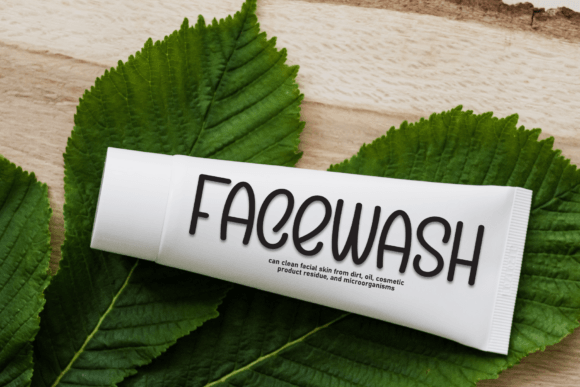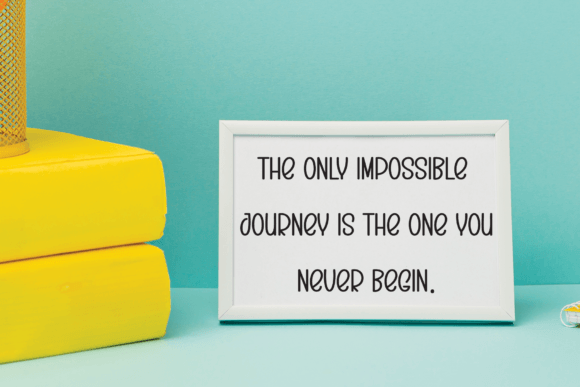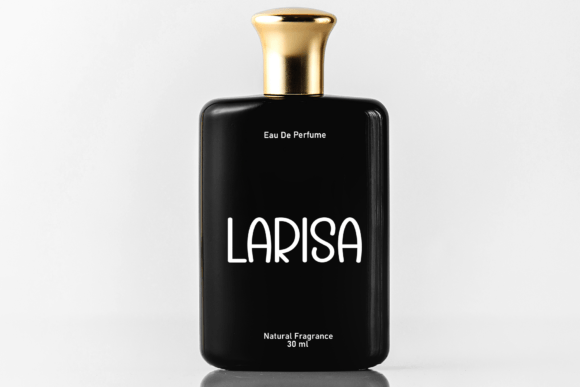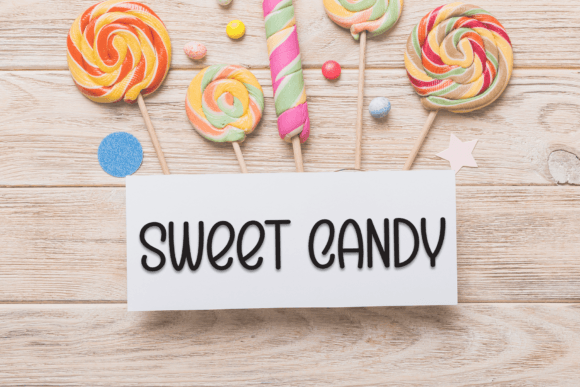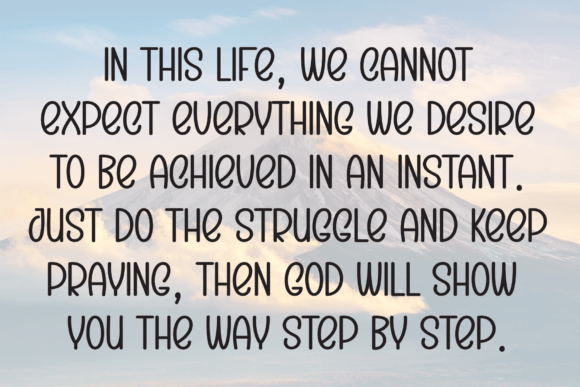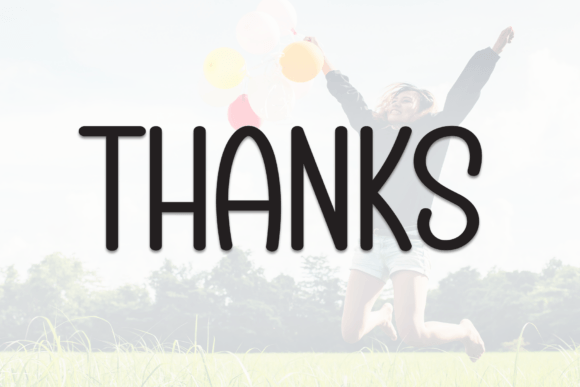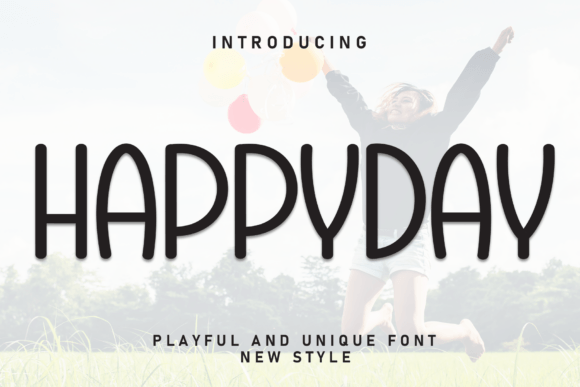
Introducing Happyday Font: The Sweet and Friendly Handwritten Font for Your Creative Projects
Are you a designer, crafter, or DIY enthusiast looking for a font that can add a touch of warmth and personality to your projects? Look no further than Happyday Font! This sweet and friendly handwritten font is perfect for a wide range of designs, from invitations and greeting cards to branding and packaging. In this article, we’ll explore the unique features of Happyday Font and how it can elevate your creative projects.
The Unique Style of Happyday Font
Happyday Font boasts a natural and unique style that sets it apart from other fonts. Its handwritten charm makes it incredibly fitting for designs that require a personal touch. The font’s friendly and approachable vibe makes it perfect for projects that aim to convey a sense of warmth and approachability. Whether you’re designing a wedding invitation, a children’s book, or a product label, Happyday Font is sure to bring a smile to your audience’s faces.
The Versatility of Happyday Font
One of the best things about Happyday Font is its incredible versatility. Its natural and unique style makes it suitable for a large pool of designs, from formal to informal, and from digital to print. The only limit to using Happyday Font is your imagination! Here are some ideas to get you started:
- Children’s books and educational materials
- Product labels and packaging
- Branding and advertising materials
Why Choose Happyday Font?
So, why choose Happyday Font for your creative projects? Here are just a few reasons:
- Unique and eye-catching: Happyday Font’s natural and unique style makes it stand out from other fonts.
- Versatile: Happyday Font can be used for a wide range of designs and projects.
- Easy to read: Despite its handwritten style, Happyday Font is incredibly easy to read, making it perfect for body text and headlines.
- Customizable: Happyday Font can be customized to fit your project’s specific needs, from adjusting the font size to adding effects and textures.
Tips for Using Happyday Font
Here are some tips for using Happyday Font in your creative projects:
- Pair it with other fonts: Happyday Font pairs well with other fonts, such as sans-serif fonts for a modern look or script fonts for a more elegant feel.
- Experiment with colors: Happyday Font looks great in a variety of colors, from bright and bold to soft and pastel.
- Add textures and effects: Adding textures and effects to Happyday Font can give it an extra layer of depth and interest.
In conclusion, Happyday Font is a sweet and friendly handwritten font that’s perfect for designers, crafters, and DIY enthusiasts. Its natural and unique style makes it incredibly fitting for a wide range of designs, and its versatility knows no bounds. Whether you’re designing a wedding invitation or a product label, Happyday Font is sure to bring a touch of warmth and personality to your project. So why not give it a try and see what amazing creations you can come up with?